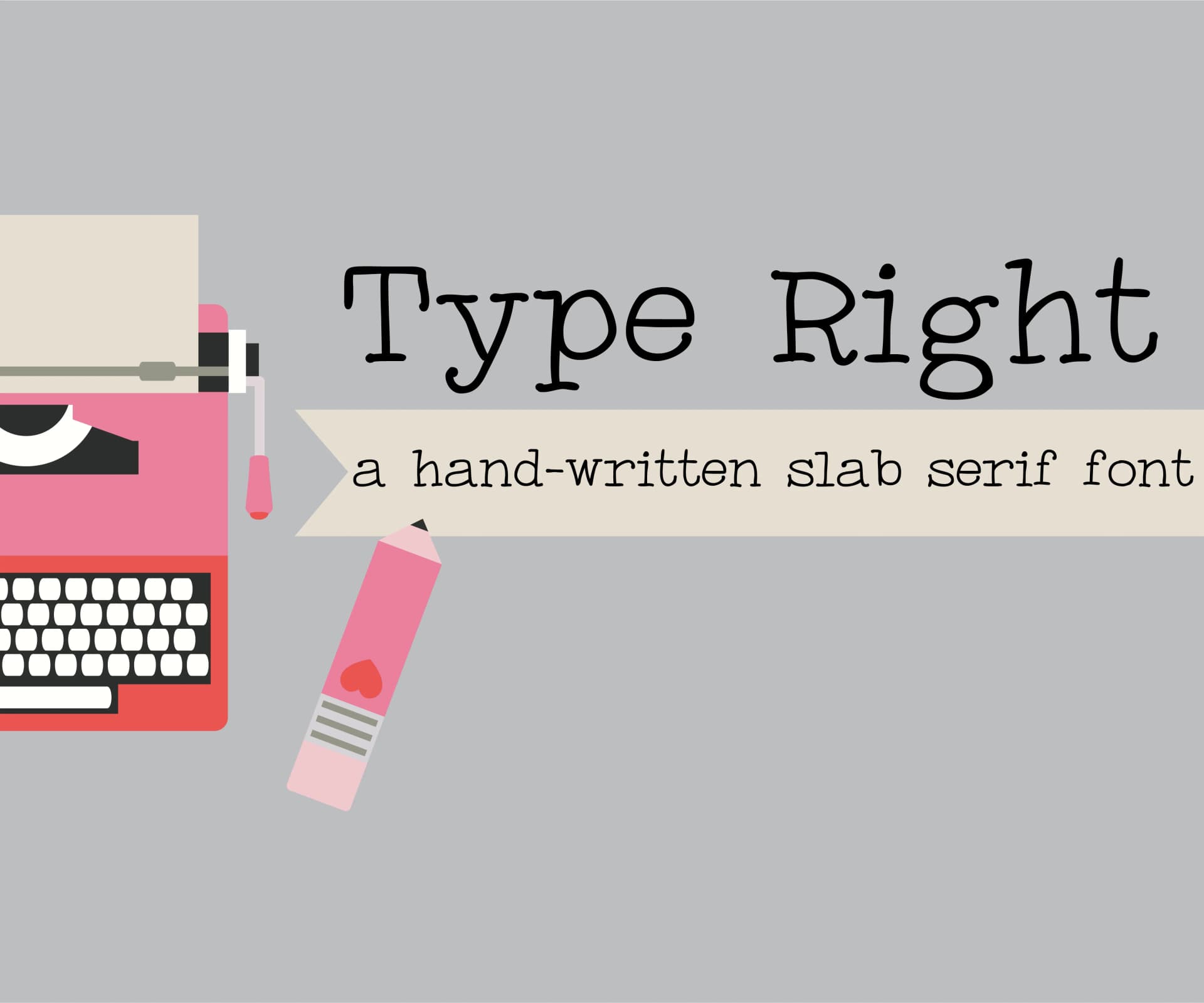
There's something wonderfully nostalgic about this typeface. Type Right, designed by Printabletales, is a hand-written slab serif that bridges typewriter efficiency with homemade authenticity and personal warmth.
The design works beautifully for projects where crafted character and genuine warmth matter far more than sleek polish. Greeting card lettering gains that personal touch that reads like it came from an actual desk, not a software template. Vintage packaging labels and retro product branding feel handcrafted and approachable rather than corporate or mass-produced. Recipe card collections and DIY scrapbook title lettering benefit from the comfortable, worn-in quality this font naturally brings to any page. Wedding invitation suites, particularly those leaning toward intimate or craft-forward aesthetics, feel far more genuine with Type Right's conversational personality. Even boutique skincare labels and artisan food packaging gain real credibility from this font's grounded, maker-friendly approach to typography.
- Sturdy, Confident
Type Right Font is a slab serif font that shines as a display or heading face. Pair it with a clean sans-serif or serif font for body text β the contrast creates a clear hierarchy while the two styles stay balanced and easy to read.